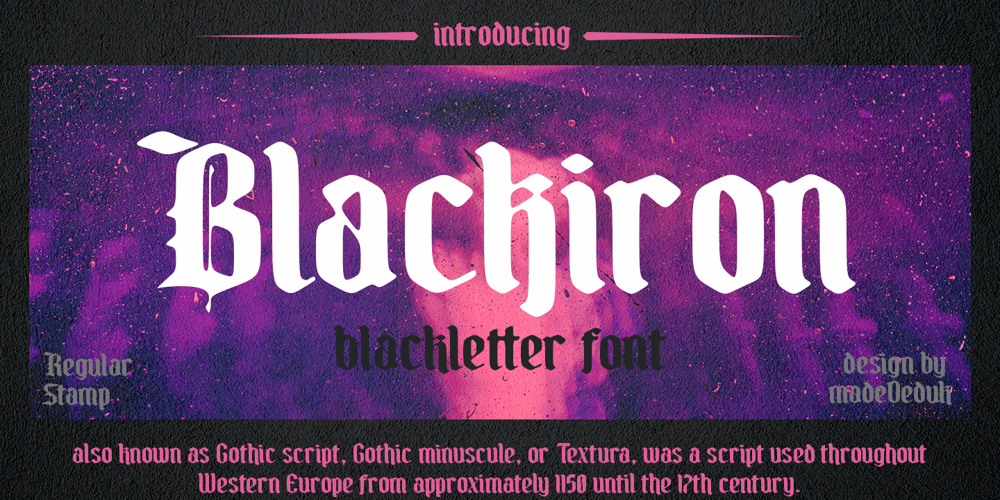
Blackiron Font Family was designed by madededuk and published by madeDeduk. Blackiron contains 2 styles and family package options. Really excited to introduce Blackiron is a classic vintage blackletter font, made with a stylish impression and supported by alternative with references to various letters that I combine. There’s come with 2 style font and suitable to create any branding, product packaging, invitation, quotes, t-shirt, label, poster, logo etc.FeatureFeel free to drop us a message any time and follow my shop for upcoming updatesShoot me on email at: dedukvic@gmail.comHope you enjoy it.